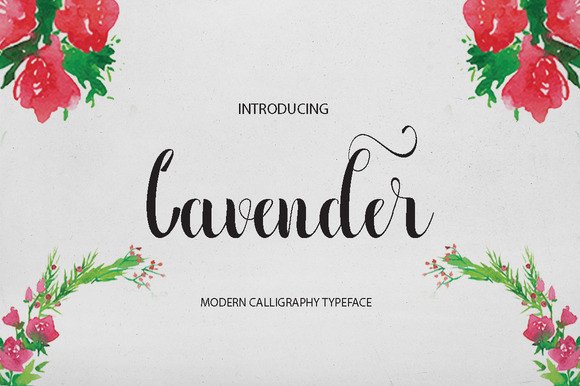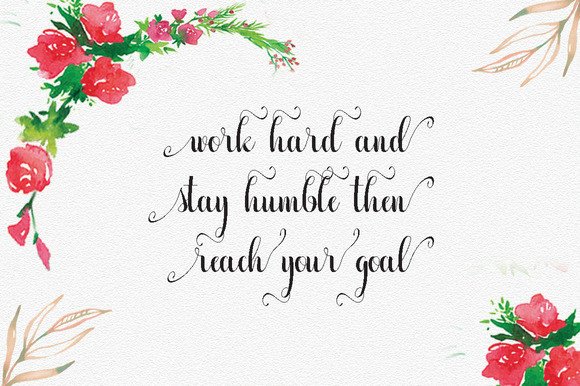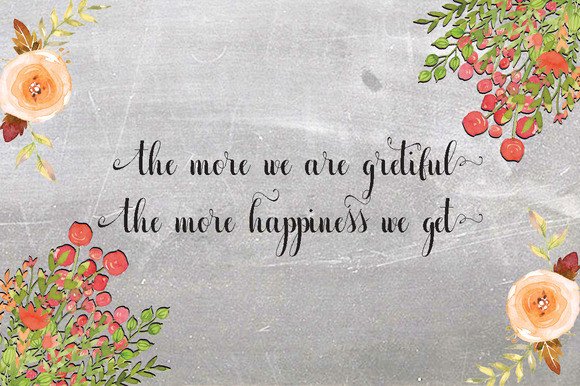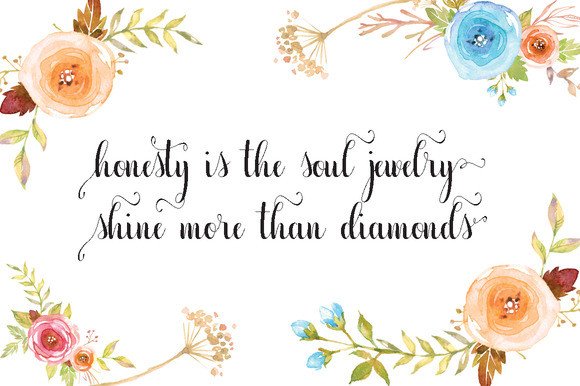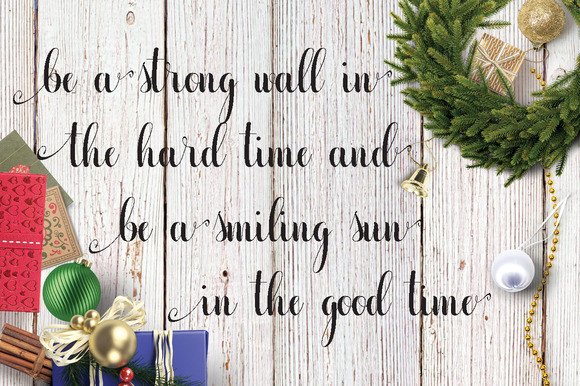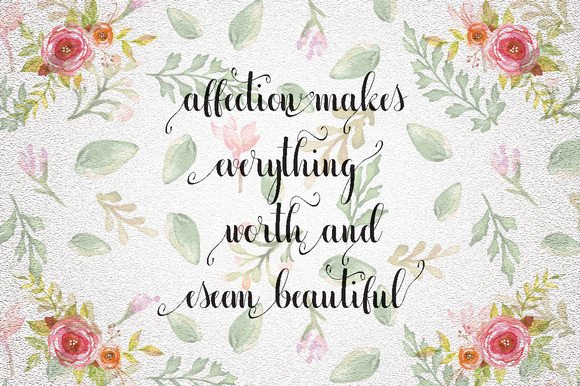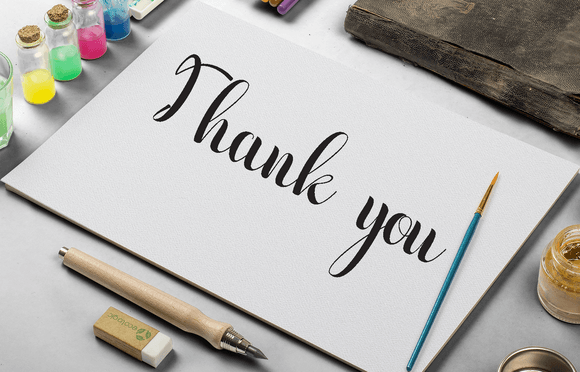
Lavender Font
About Lavender Font
Lavender is a beautiful and neat script font.  Lavender has a quaint and tidy appeal because of its steady baseline, and looks great for headlines to all your romantic or springy design projects.